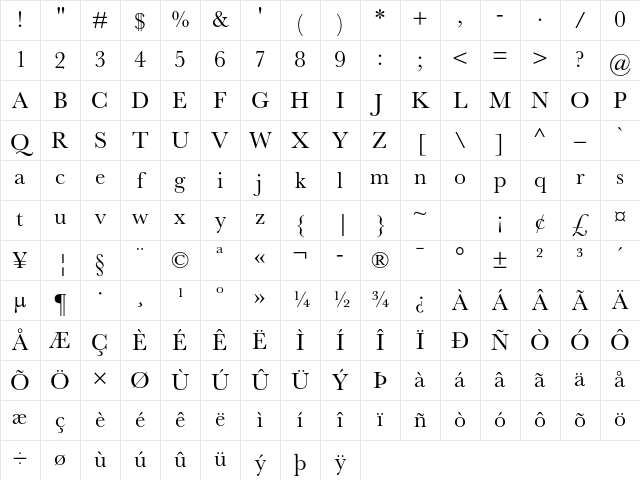
Baskerville MT Std Regular
Design Context for Baskerville MT Std
Baskerville MT Std is a composed and adaptable typeface that performs quietly and consistently across a wide range of design contexts.
Pro Tip: Use Baskerville MT Std in both headline and body roles to test its range before committing to a single application.